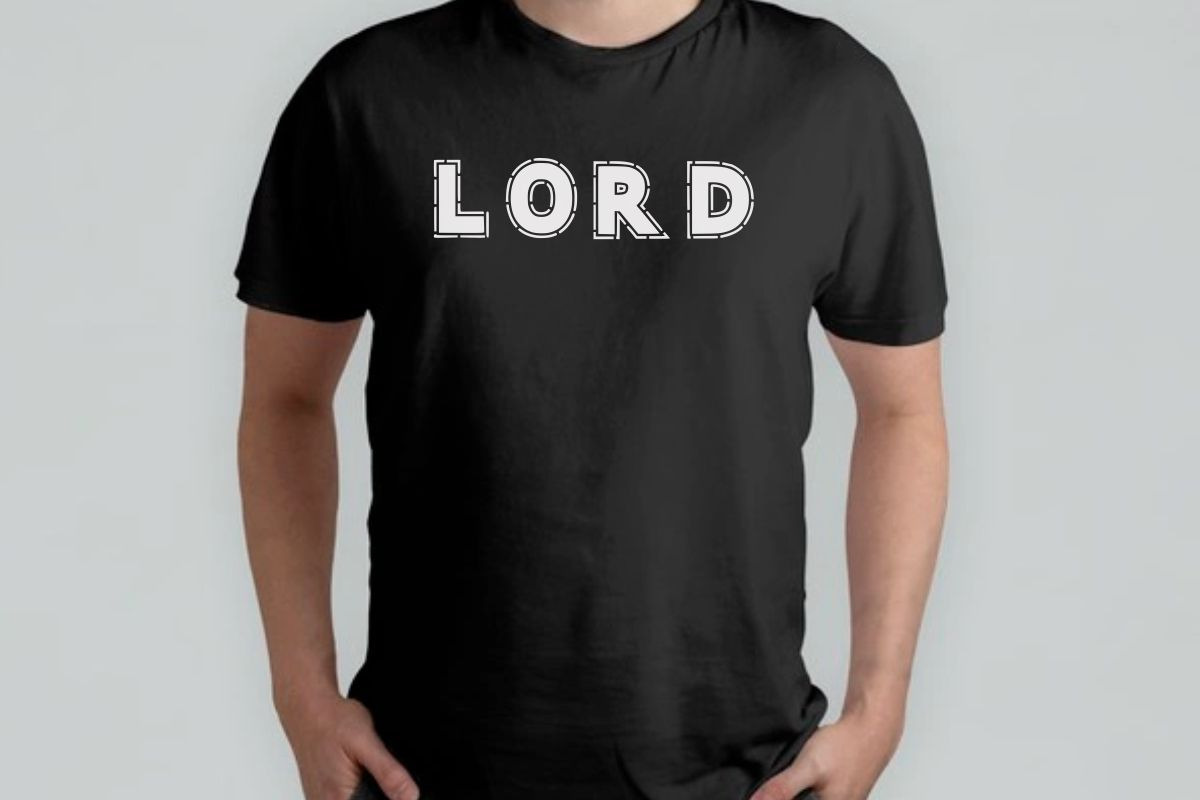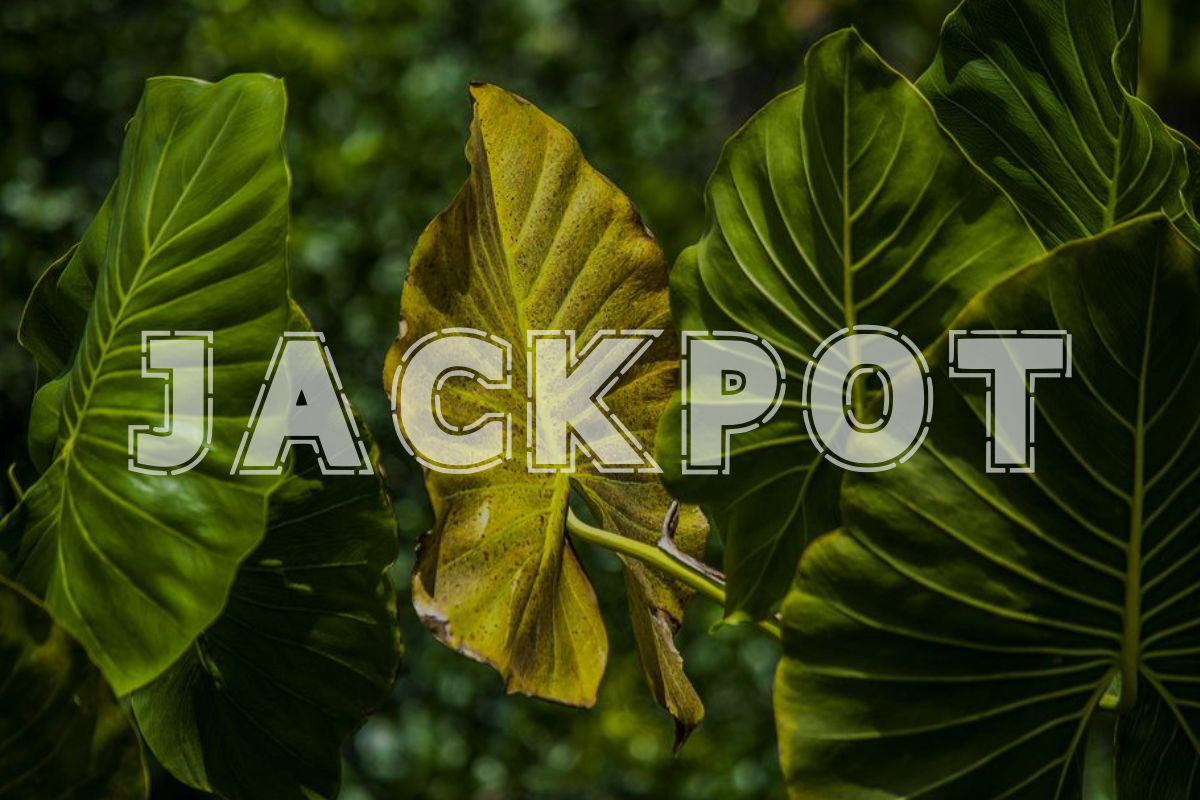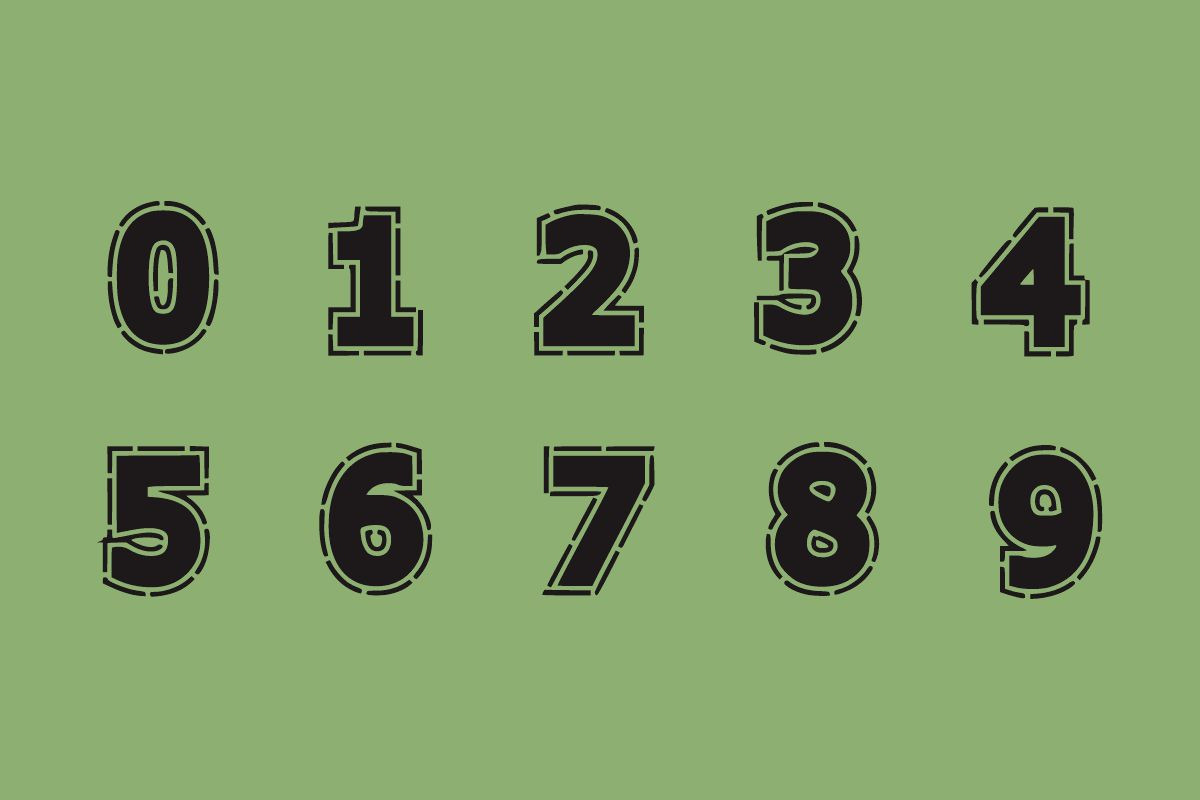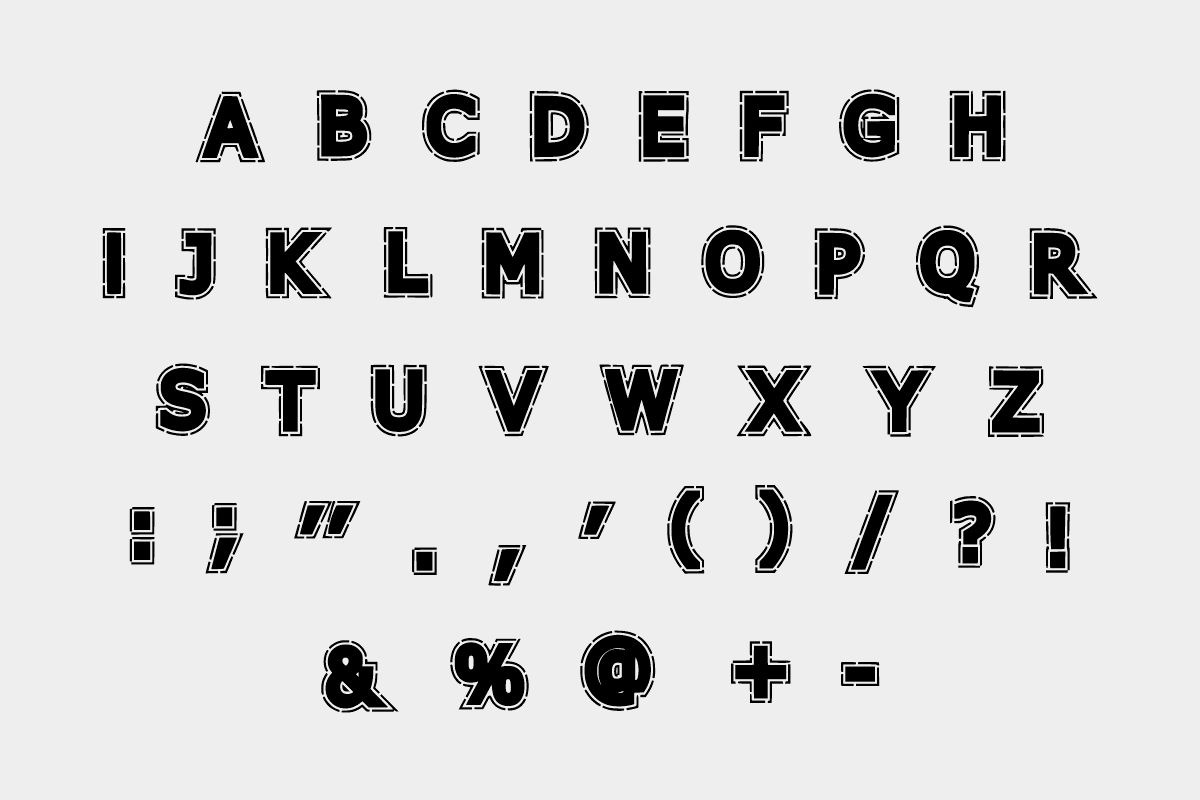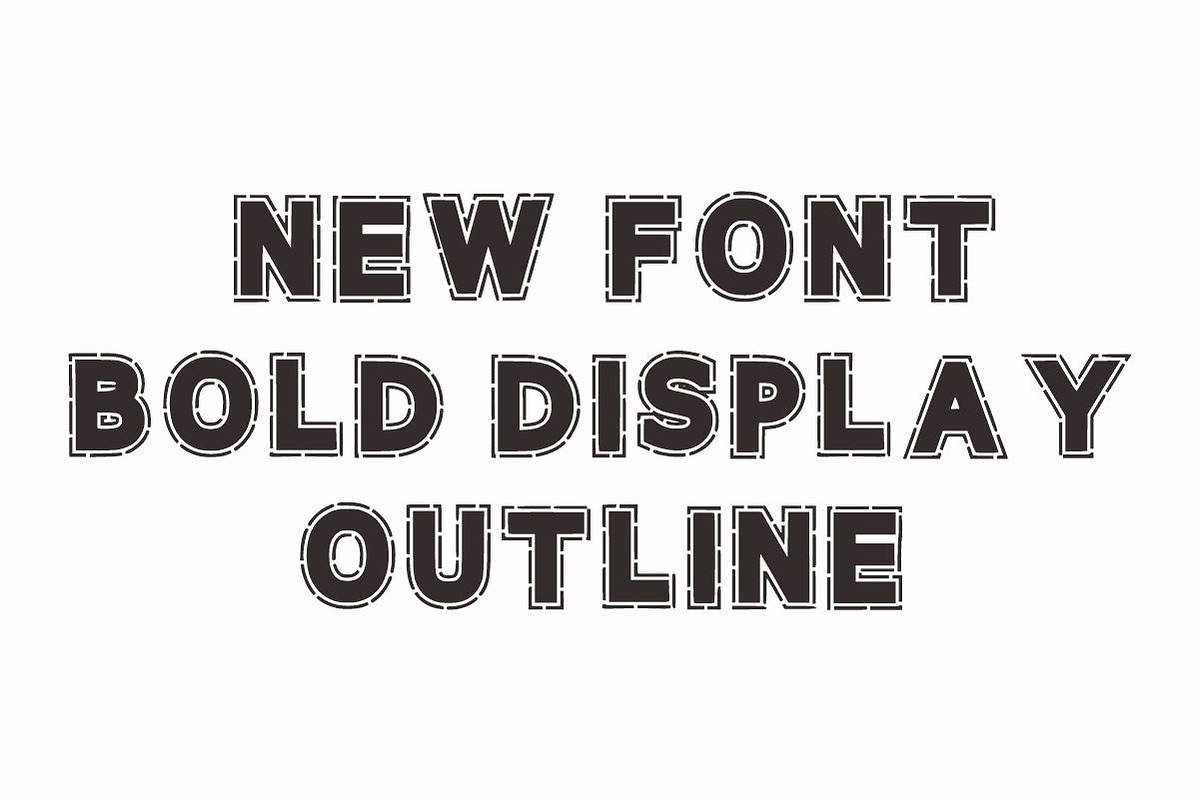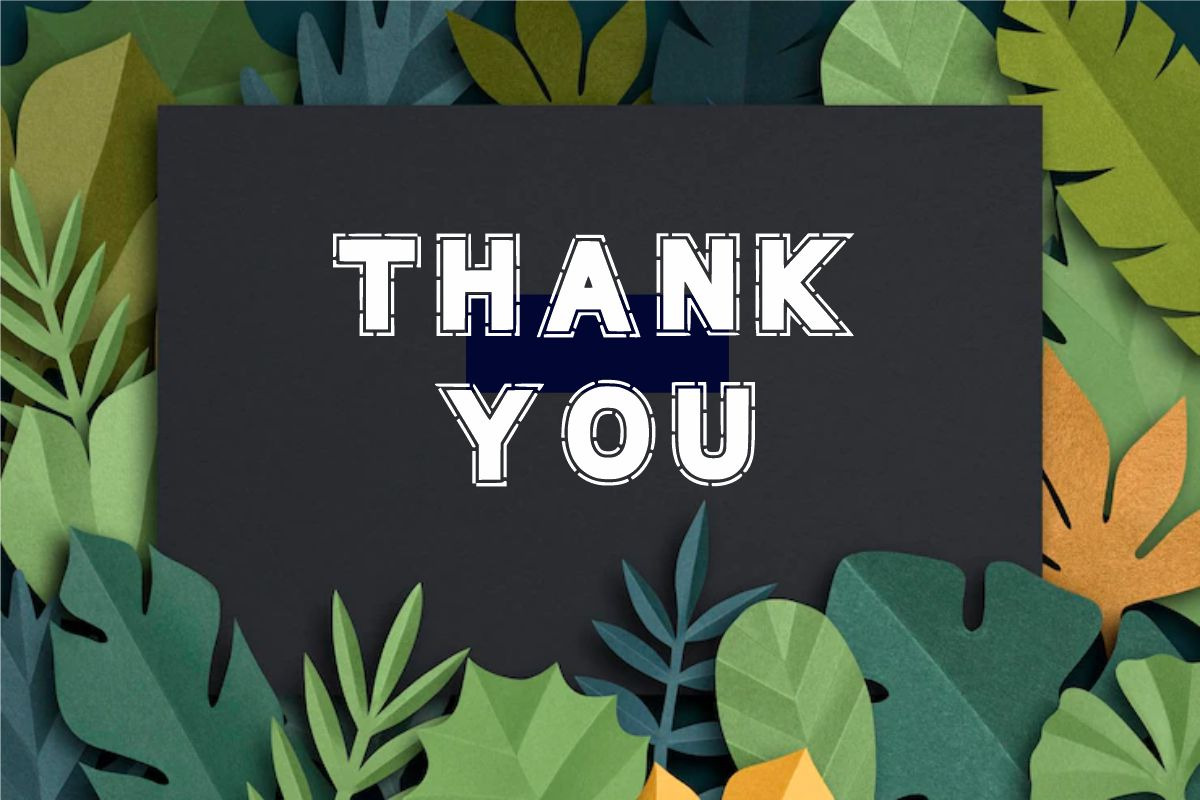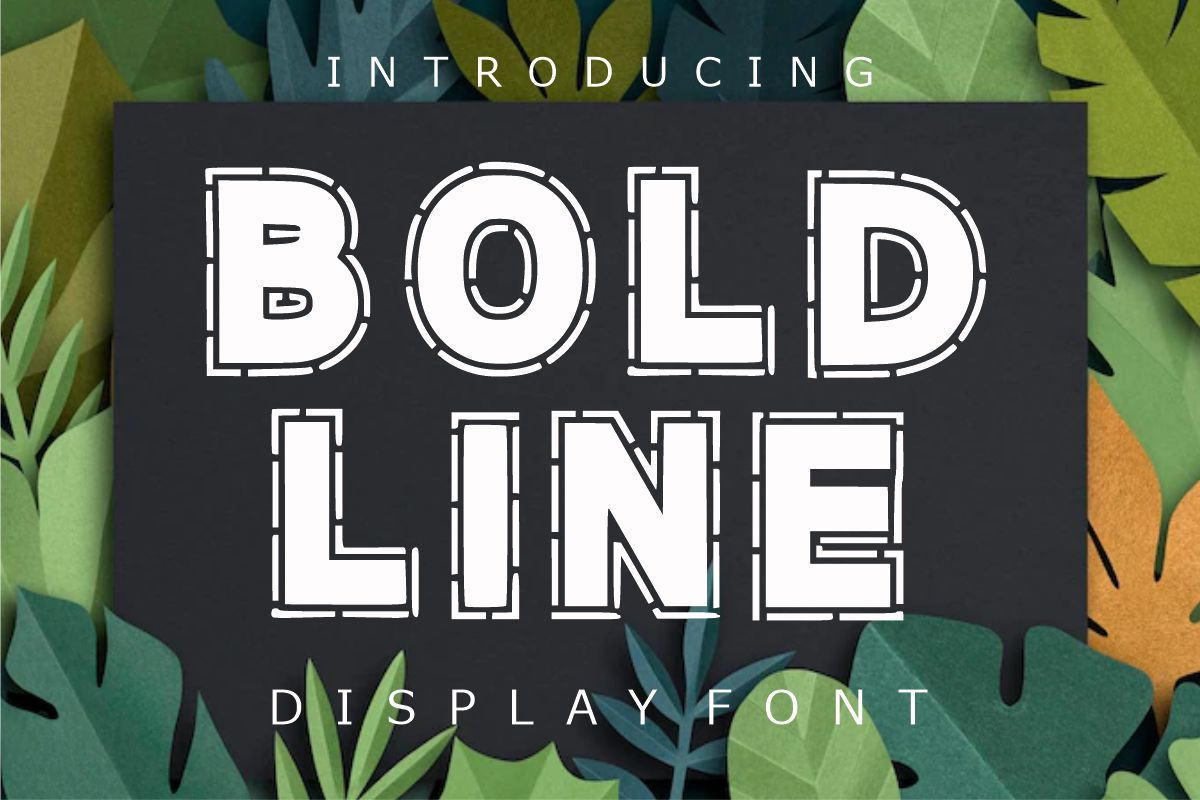
Bold Line Font
BOLD LINE is a Bold and adaptable display font. It is easy to read and conveys impeccable friendliness. Whether you’re using it for crafts, Logo, digital design, presentations, or making greeting cards.